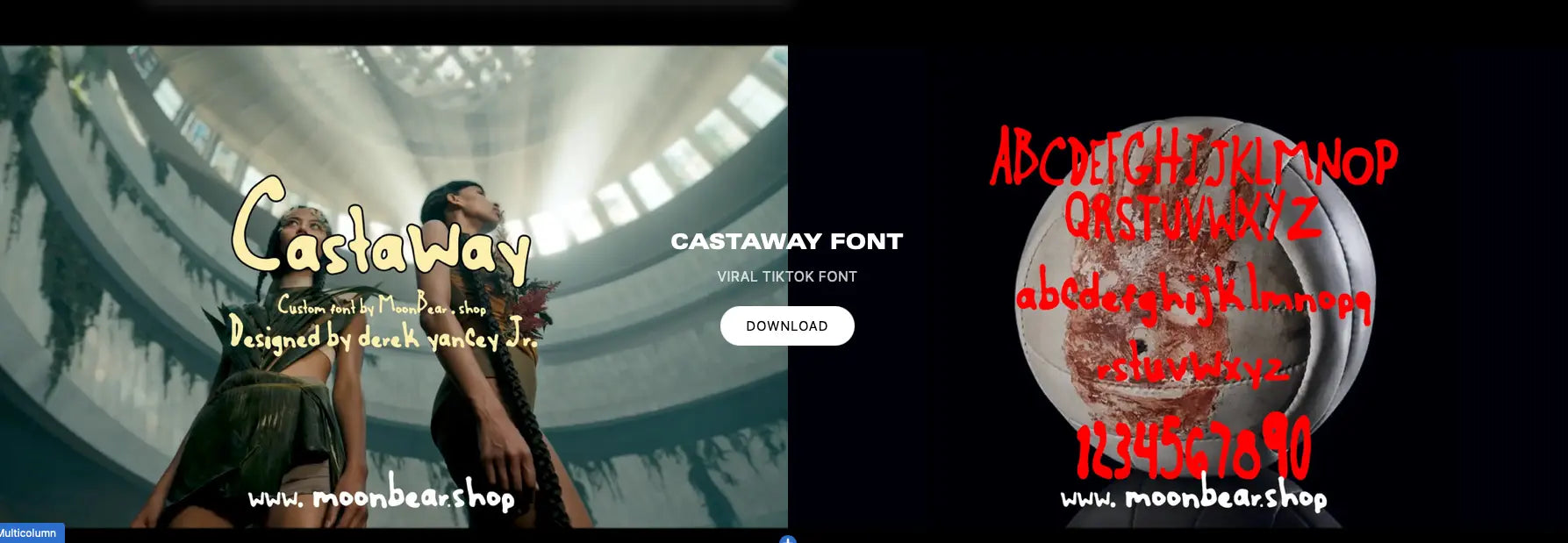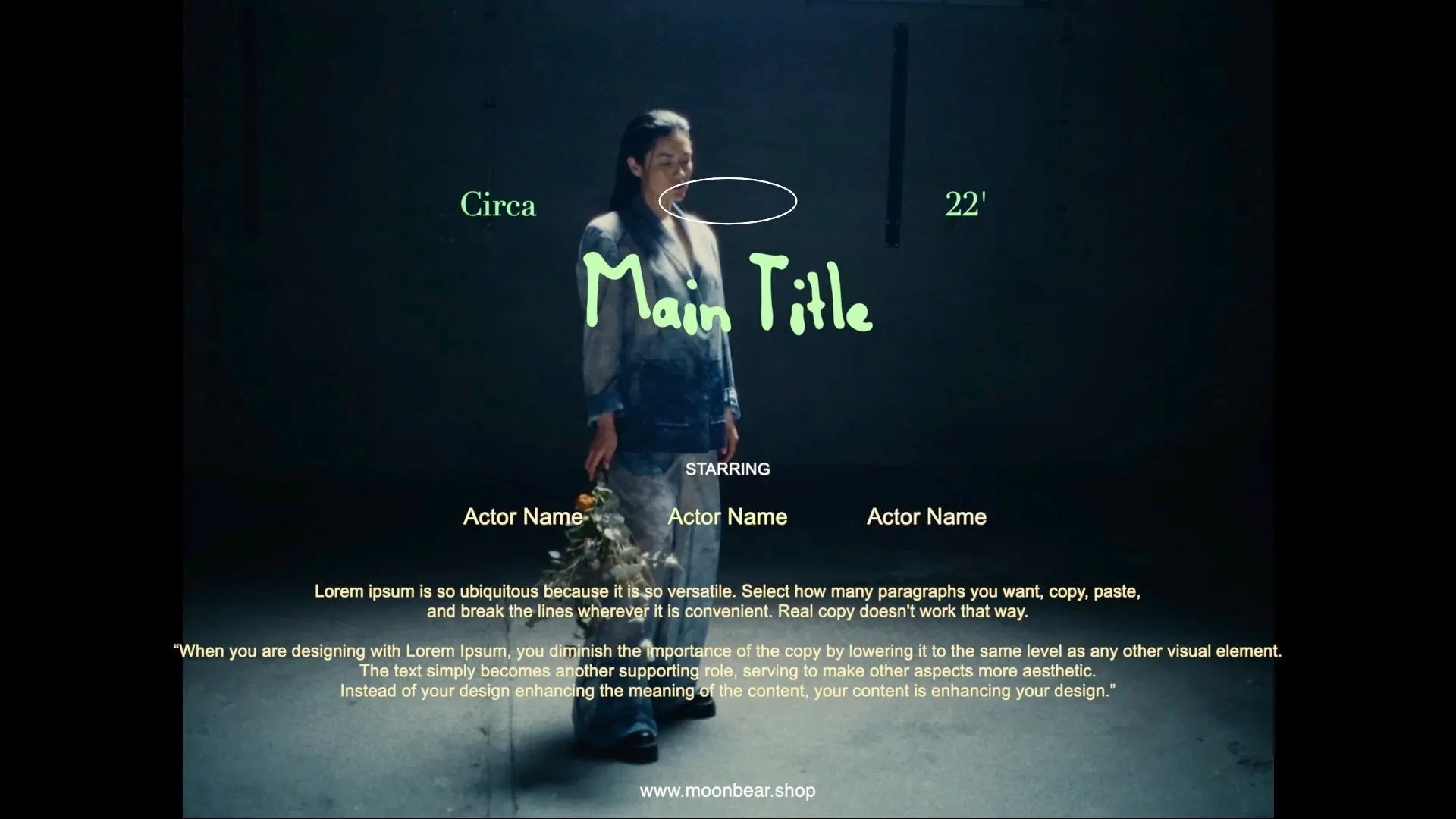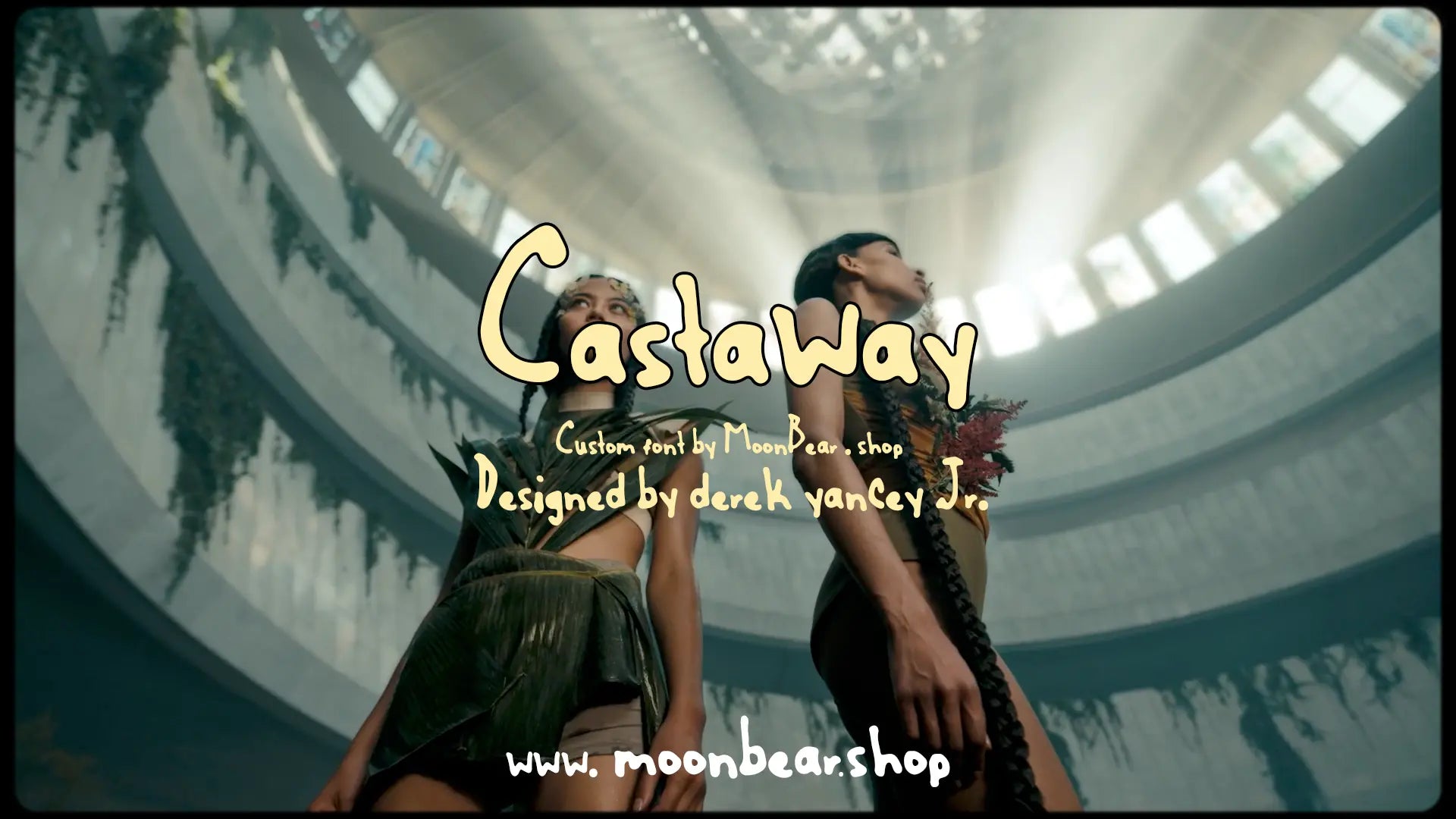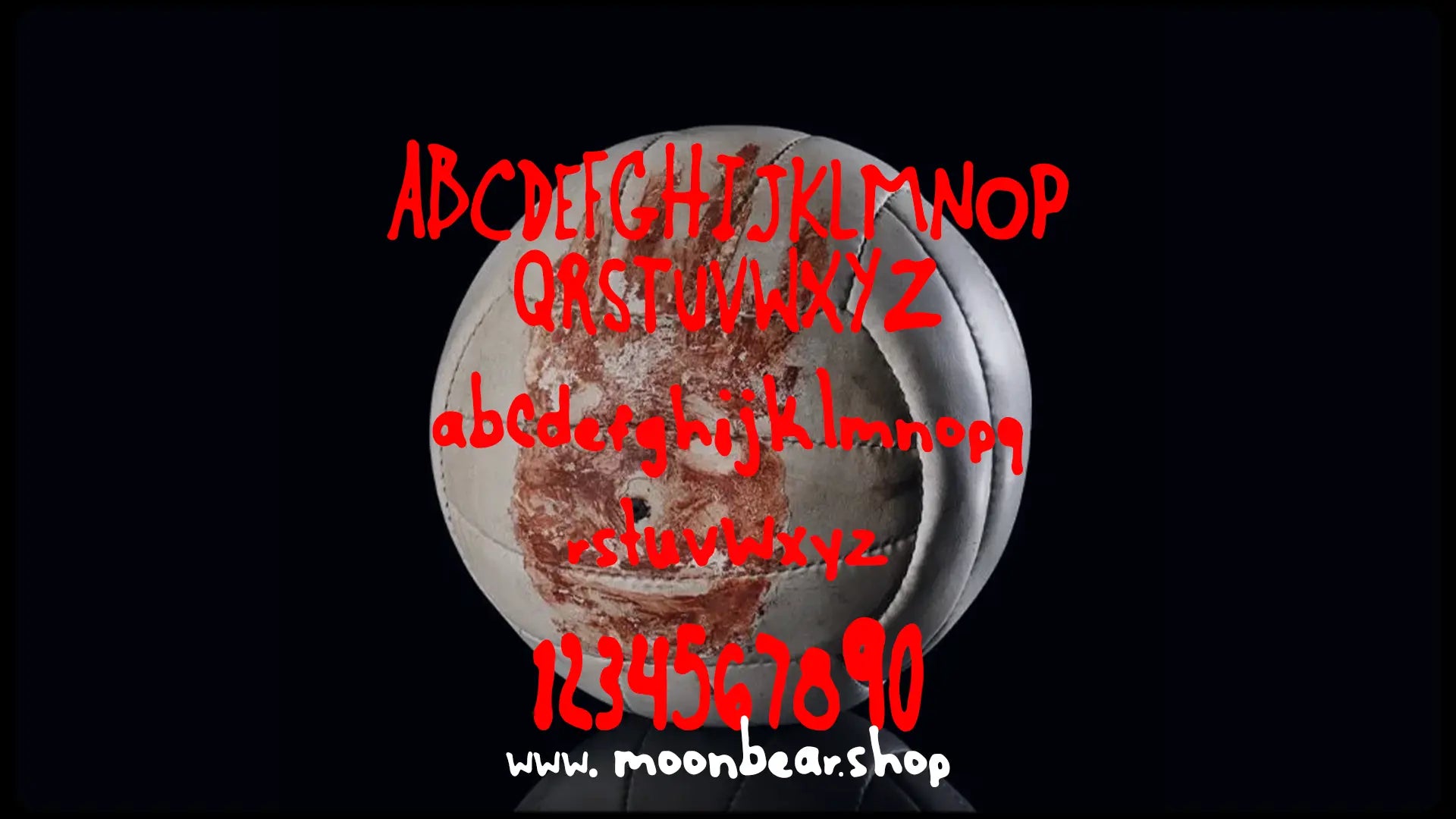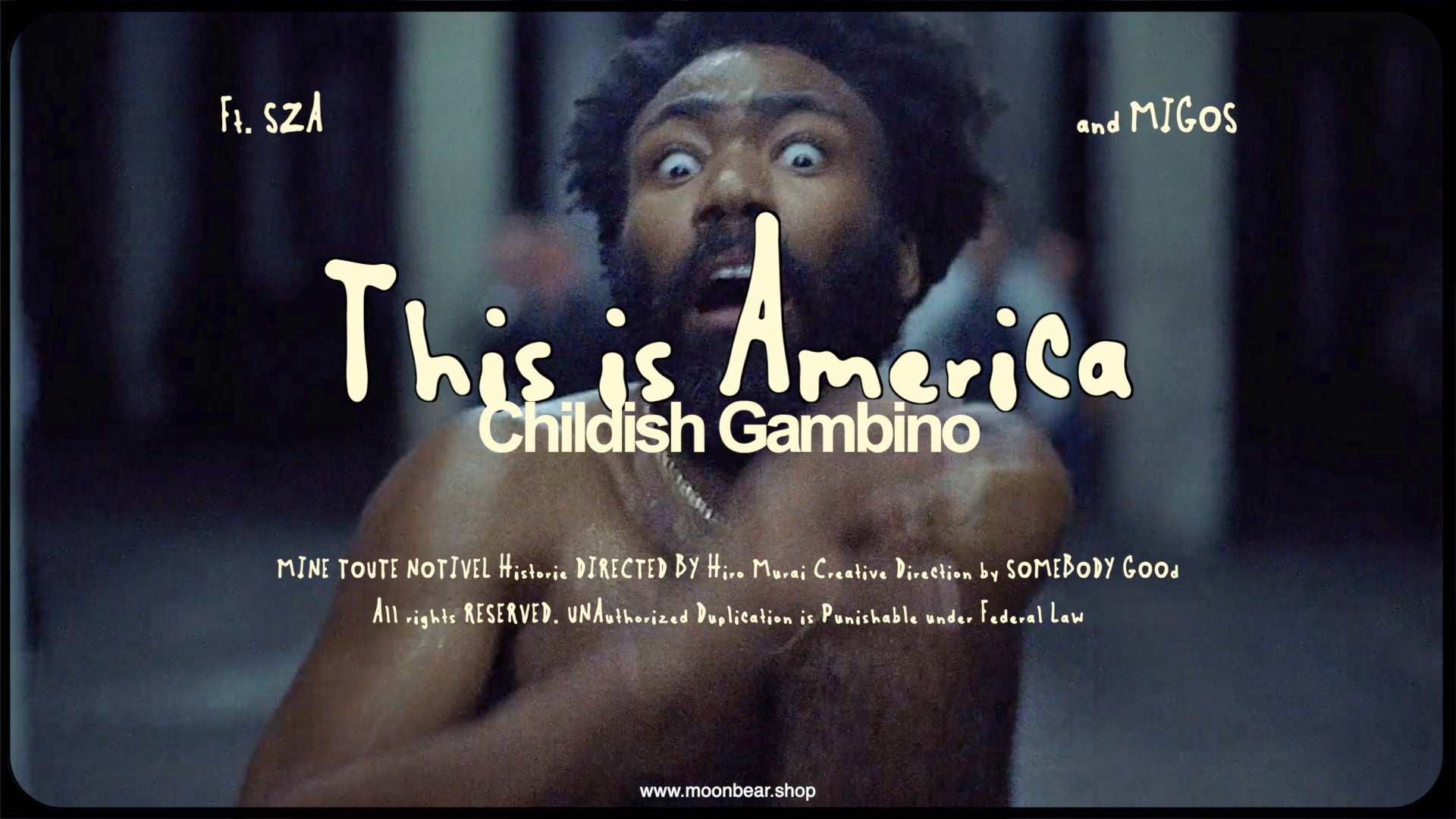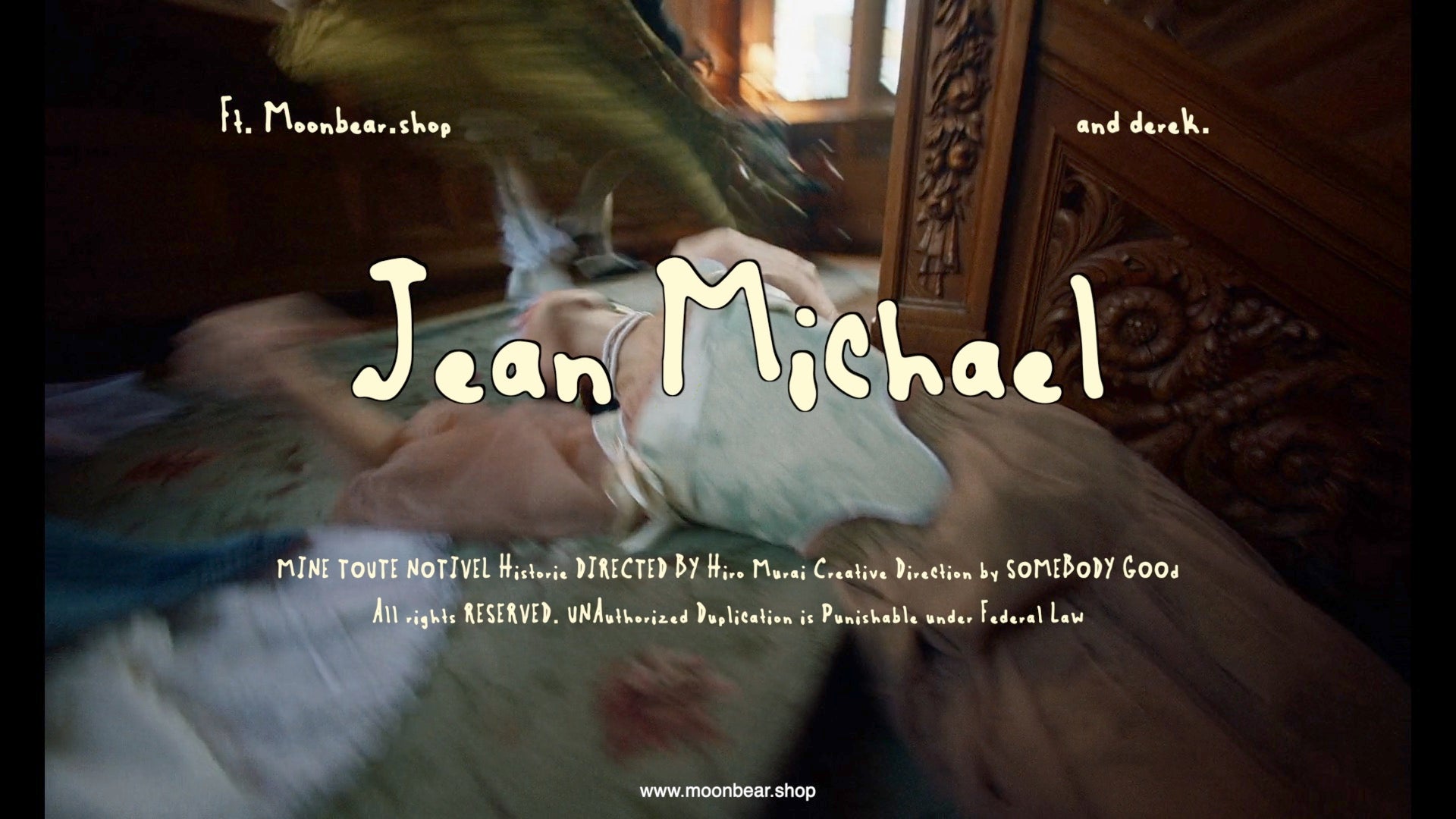
Rugged Handdrawn Display Typeface
Castaway Font
Castaway Font — A Bold, Handcrafted Typeface for High-Impact Visual Storytelling
Castaway Font is a meticulously crafted handwritten typeface designed for filmmakers, designers, and digital creatives who demand a distinctive yet professional edge. With its raw texture and organic flow, Castaway offers a handcrafted aesthetic that commands attention without compromising legibility—making it an exceptional choice for use in music videos, film titles, lyric visuals, and branded content.
In a media landscape oversaturated with generic typefaces, Castaway Font stands out by offering a fresh, authentic voice. Each letterform is drawn with precision, preserving the imperfections and personality of human handwriting while maintaining the structure and consistency needed for high-end production. This makes it ideal for dynamic motion graphics, cinematic video titles, album artwork, YouTube thumbnails, and other creative projects where style and originality are critical.
Optimized for Motion and Design Professionals
Why Creatives Choose Castaway Font:
- Designed for Cinematic Use – Crafted with music video editors and filmmakers in mind, Castaway delivers a bold, memorable style for titles, credits, or overlays.
- High-Quality Handwriting Aesthetic – Capture an authentic, handwritten look that brings emotion and energy to any frame.
- Perfect for Branding & Logos – Whether you’re branding an artist, label, or visual identity, Castaway adds unique character to your typography.
- TikTok-Proven Popularity – Its trendsetting style has already gained momentum across social platforms, making it a culturally relevant design choice.
From underground music videos to polished commercial edits, Castaway Font brings a distinctive personality that resonates with modern audiences. If you’re looking for a handwritten typeface that’s both rugged and refined, Castaway is the professional choice.